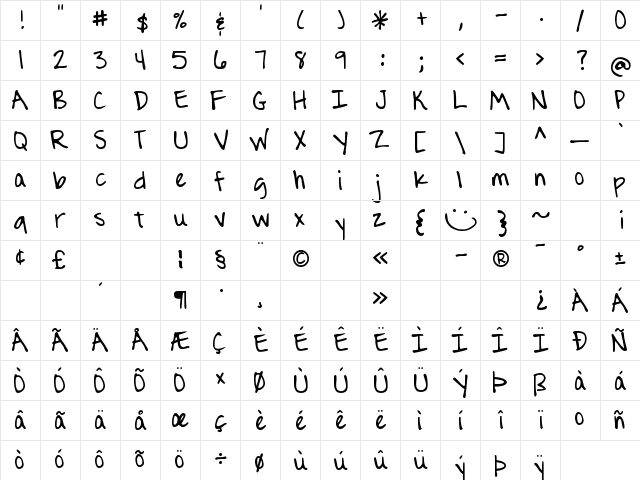
DJB Journaling Font Regular
| Designer | Darcy Baldwin |
Design Context for DJB Journaling Font Typeface
DJB Journaling Font is a composed and adaptable typeface that performs quietly and consistently across a wide range of design contexts.